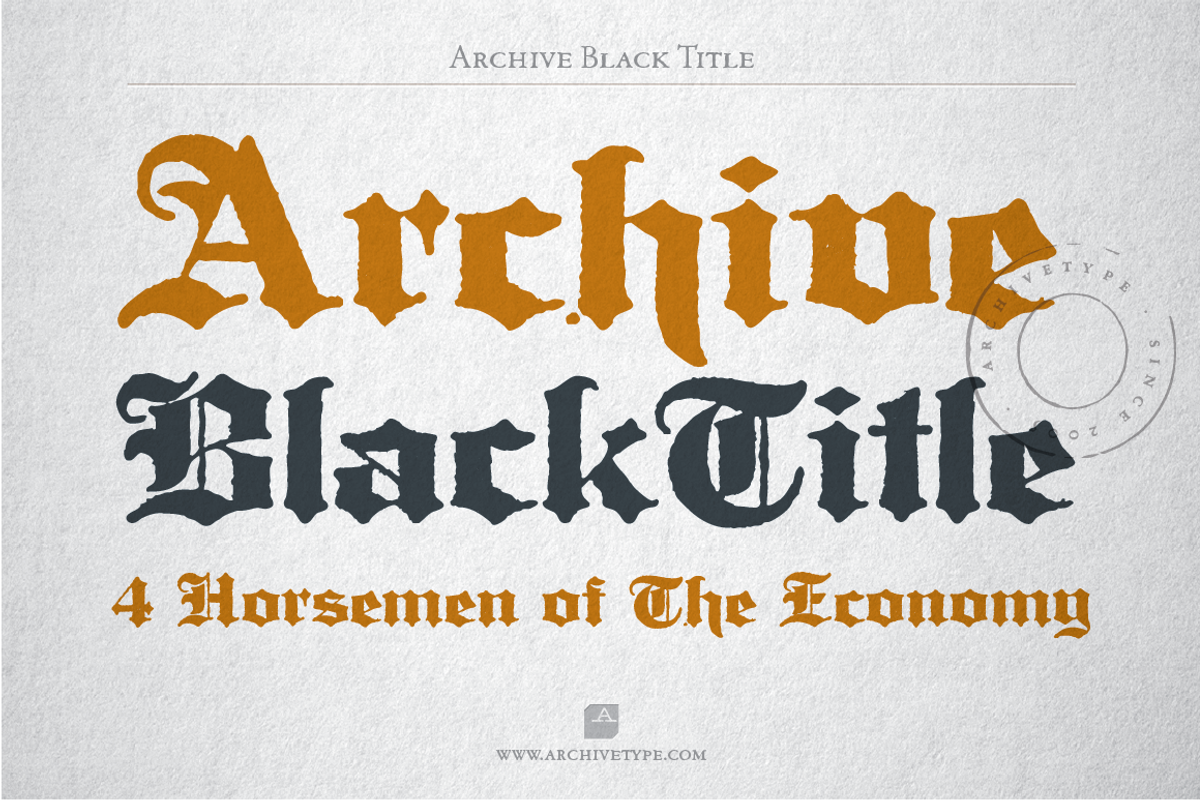
Archive Black Title Font is perfect for bold headline design, impactful poster creation, magazine title layouts, book cover design, movie title graphics, advertising campaigns, dramatic logo design, editorial headlines, signage design, packaging titles, concert poster graphics, and commanding brand identity systems.
Archive Black Title Font is exciting because it delivers uncompromising visual impact through its ultra-bold letterforms that demand attention and create unforgettable first impressions in any design context. This powerhouse typeface features maximum weight distribution and commanding presence that makes every headline feel like a statement piece. The font's archival quality design ensures timeless appeal while providing the bold authority needed for high-impact communications.
Archive Black Title Font includes comprehensive font families: Ultra Black Display, Heavy Bold Impact, Extra Bold Statement, Condensed Power Format, Extended Wide Presence, Italic Dynamic Slant, Outline Strong Style, Shadow Depth Effects, Textured Vintage Alternative, and Special Bold Symbols, providing complete solutions for maximum visual impact across all design applications.
This dominant typography solution transforms ordinary headlines into commanding visual statements through its exceptional weight and authoritative design language. Archive Black Title Font Free Download offers designers access to premium ultra-bold typography that instantly adds power, authority, and unforgettable presence to any creative project. The font's meticulously crafted letterforms ensure perfect readability even at extreme weights while maintaining distinctive character and professional quality.
Graphic designers and creative directors rely on Archive Black Title Font for projects requiring maximum visual impact and authoritative communication that cuts through visual noise and captures immediate attention. The typeface's robust construction performs exceptionally well across various media applications, from intimate print materials to massive outdoor advertising displays. Its extensive character support includes multilingual capabilities and design elements optimized for high-contrast, attention-grabbing applications.
The design philosophy behind Archive Black Title Font emphasizes the power of bold typography to communicate confidence, authority, and unmistakable presence in competitive visual environments. This impact-focused approach creates a font that feels genuinely commanding while maintaining professional versatility across different industries and communication contexts that demand immediate recognition.
Whether creating advertising headlines, editorial mastheads, or brand identity systems requiring maximum impact, this title font delivers exceptional results that ensure messages are seen, read, and remembered. Download Archive Black Title Font today and discover how premium ultra-bold typography can transform your headline projects into powerful visual statements that command attention and communicate with unwavering authority and distinctive presence.